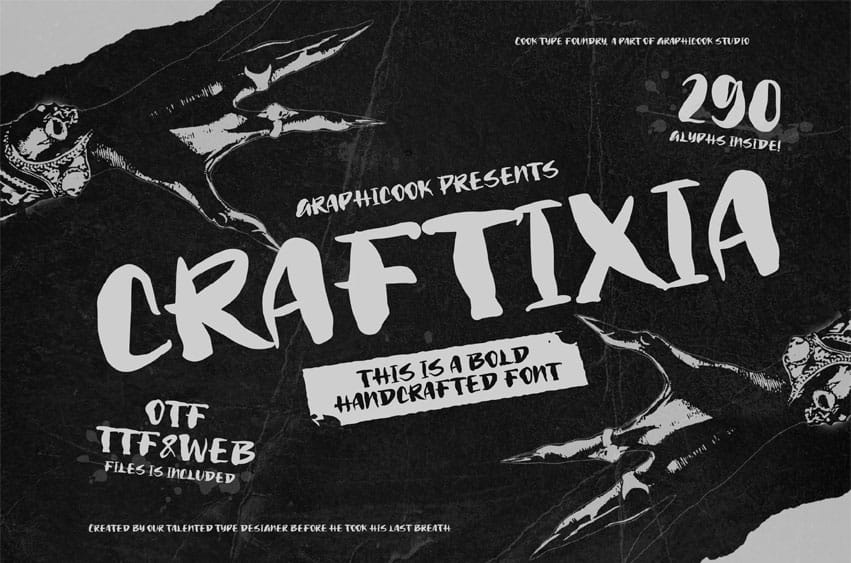
Craftixia Font is a handcrafted font that mimics hand-drawn writing, offering a personal, relaxed, and expressive feel. It’s perfect for creative branding, art projects, music posters, or designs with horror, punk, or indie themes.
It is perfect for headlines, logotypes, magazines, packaging, quotes, movies, games, cover albums, book covers, and flyers. It’s a perfect solution for creating eye-catching designs that stand out in any context.